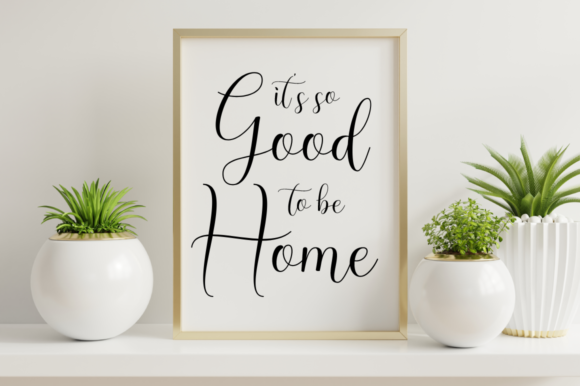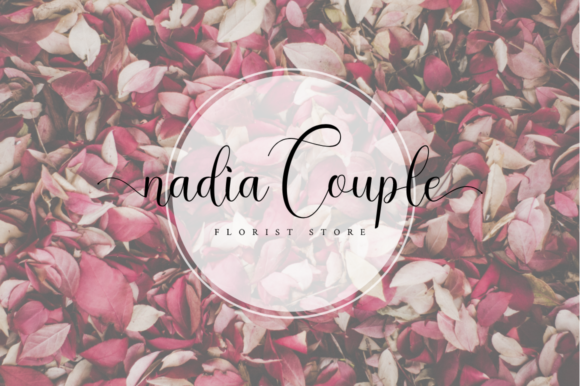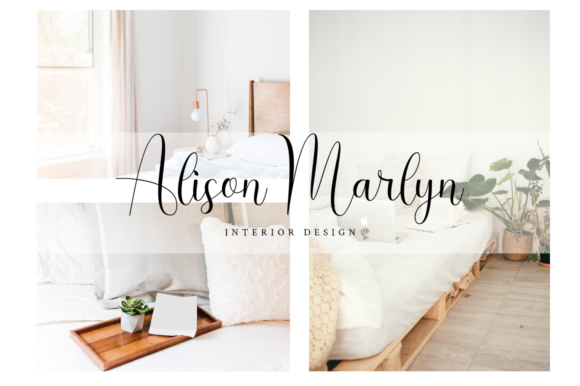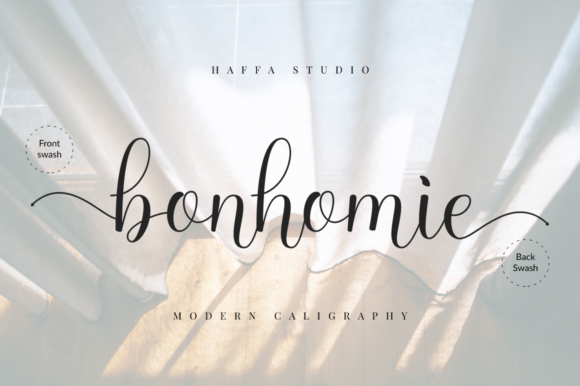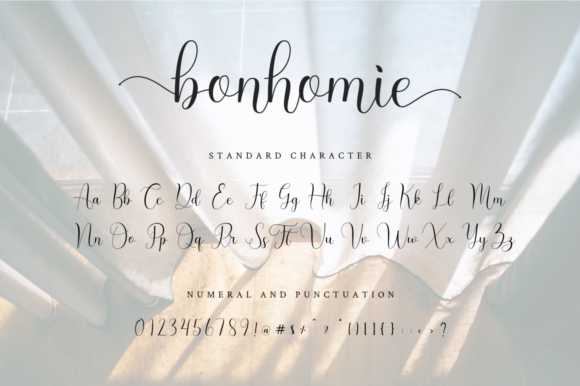
Bonhomie Font
About Bonhomie Font
Bonhomie is a sophisticated and elegant handwritten font that adds a touch of refinement and charm to your designs. With its smooth and round letterforms, this font exudes a sense of elegance and grace.
The PUA (Private Use Area) encoding of Bonhomie ensures easy access to all the additional glyphs and swashes, allowing you to customize and enhance your designs effortlessly. This feature provides you with a wide range of design possibilities and ensures that your creations stand out with a personalized touch.
Bonhomie is particularly well-suited for designs that require a personalized and stylish approach. It lends itself beautifully to wedding invitations, thank you cards, and other stationery items, infusing them with a touch of sophistication. The graceful curves and balanced proportions of the letters create a harmonious and visually pleasing aesthetic.
The versatility of Bonhomie extends beyond wedding-related designs. Its timeless appeal makes it a suitable choice for a variety of projects, including greeting cards, logos, and branding materials. The elegant and refined nature of this font adds a touch of class and professionalism to any design.
With Bonhomie, you can create designs that capture attention and leave a lasting impression. Its unique style and attention to detail make it a standout choice for those seeking a handwritten font with a touch of elegance. Whether you’re working on personal or professional projects, Bonhomie offers a refined and sophisticated option to elevate your designs.
In summary, Bonhomie is an elegant and smooth handwritten font that offers a touch of refinement and charm to your designs. With its PUA encoding, you can easily access all the glyphs and swashes for added customization. Embrace the timeless beauty of Bonhomie and bring a personalized and stylish touch to your wedding invitations, thank you cards, logos, and more.